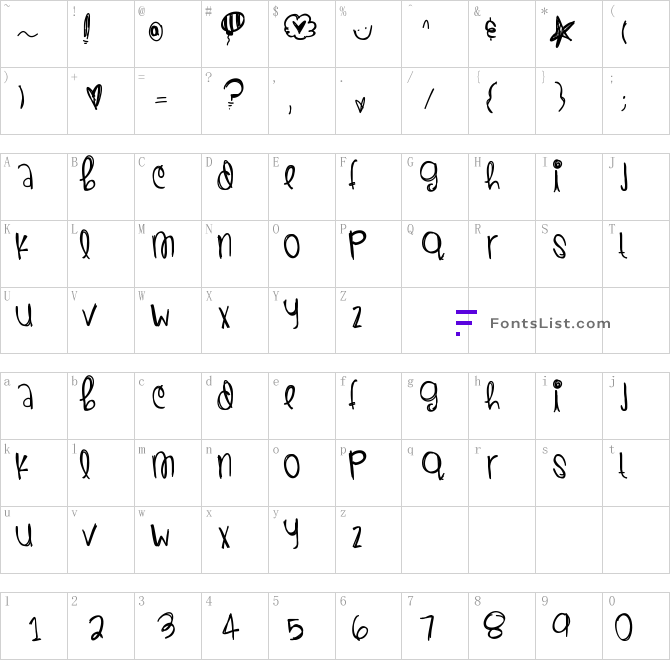
- Font Name:BeautifulMorning
BeautifulMorning.ttf is a very beautiful artistic font, BeautifulMorning.ttf is widely used in the design and printing of various books and pictures,BeautifulMorning.ttf has a strong visual impact,BeautifulMorning.ttf is a commonly used font in newspapers, magazines and books, and is used in posters, e-commerce Poster design, store design, logo design, font design and other fields.BeautifulMorning.